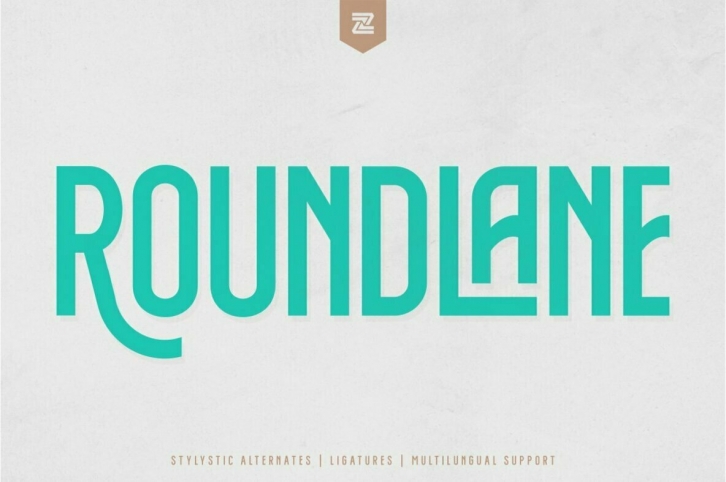
ROUNDLANE is a font inspired by retro badges antique labels with allcaps,multilingual support, alternates signs, numbers & punctuation.
Really fit for Band wordmark, album cover , video tittle, sticker, clothing brand name, t-shirt designs, badges designs, banner, flyer, etc.